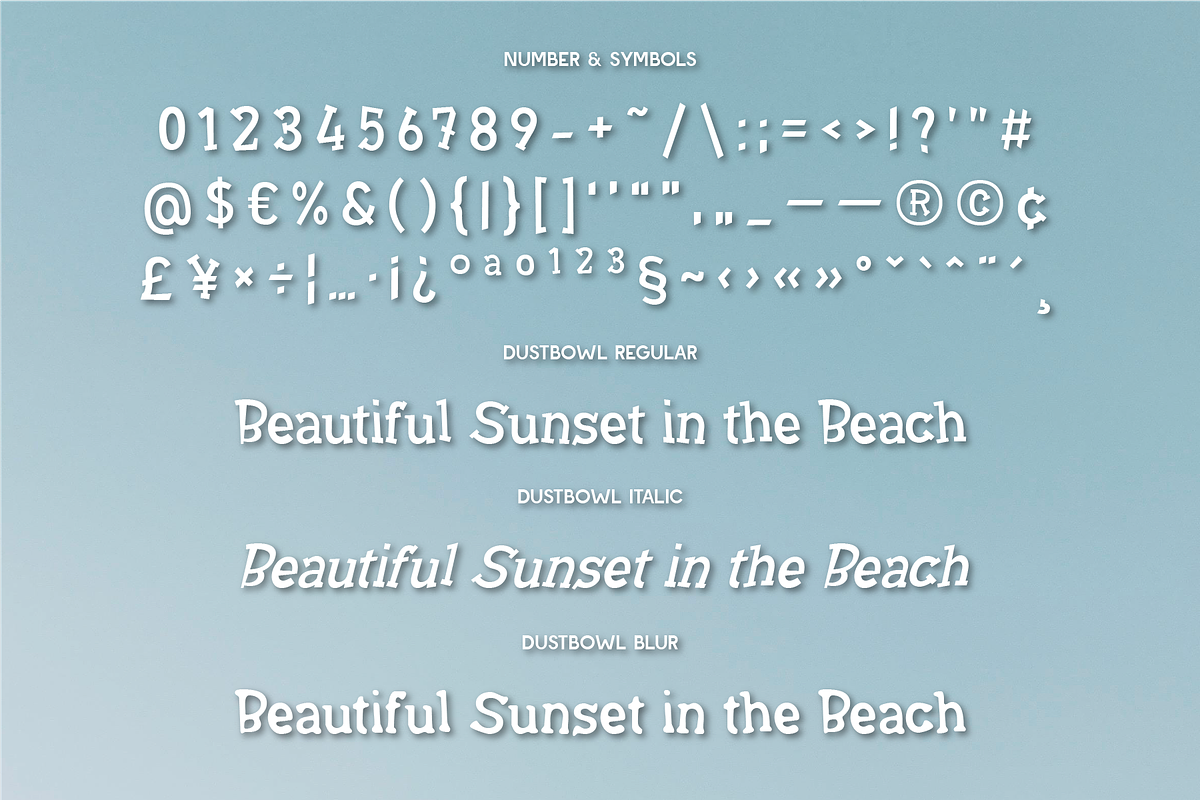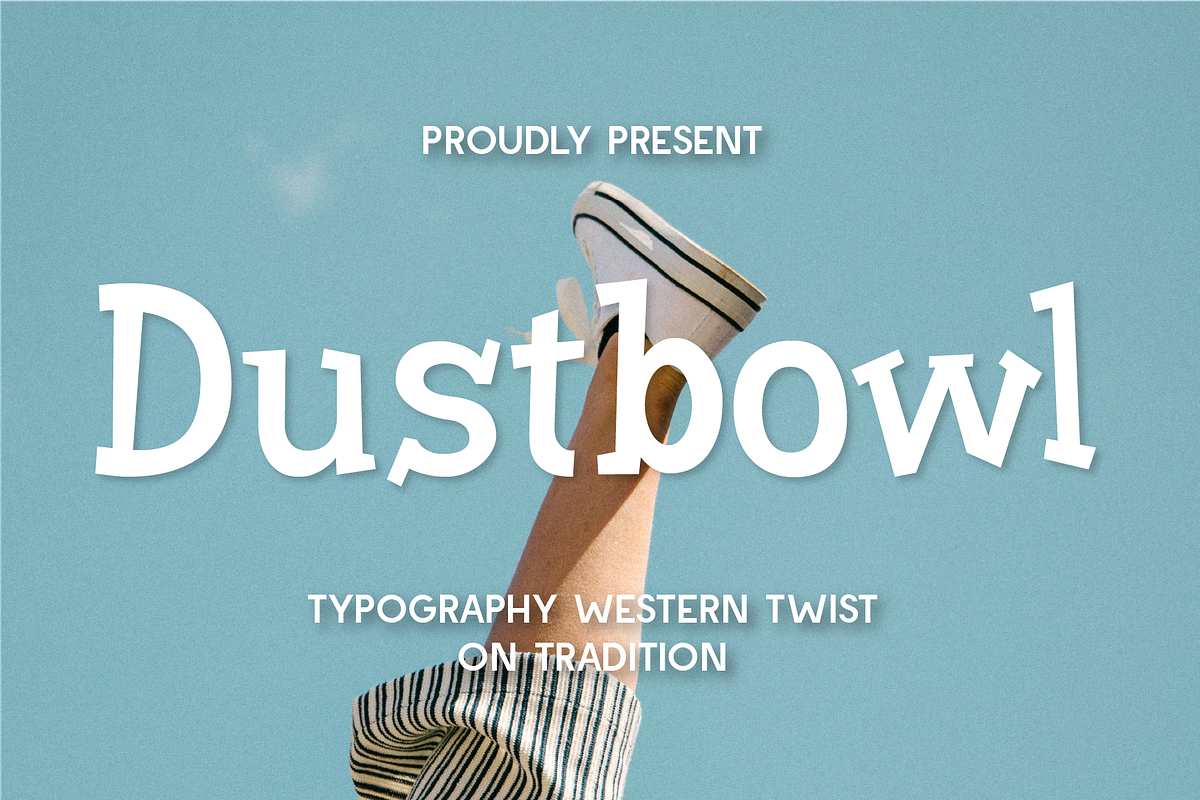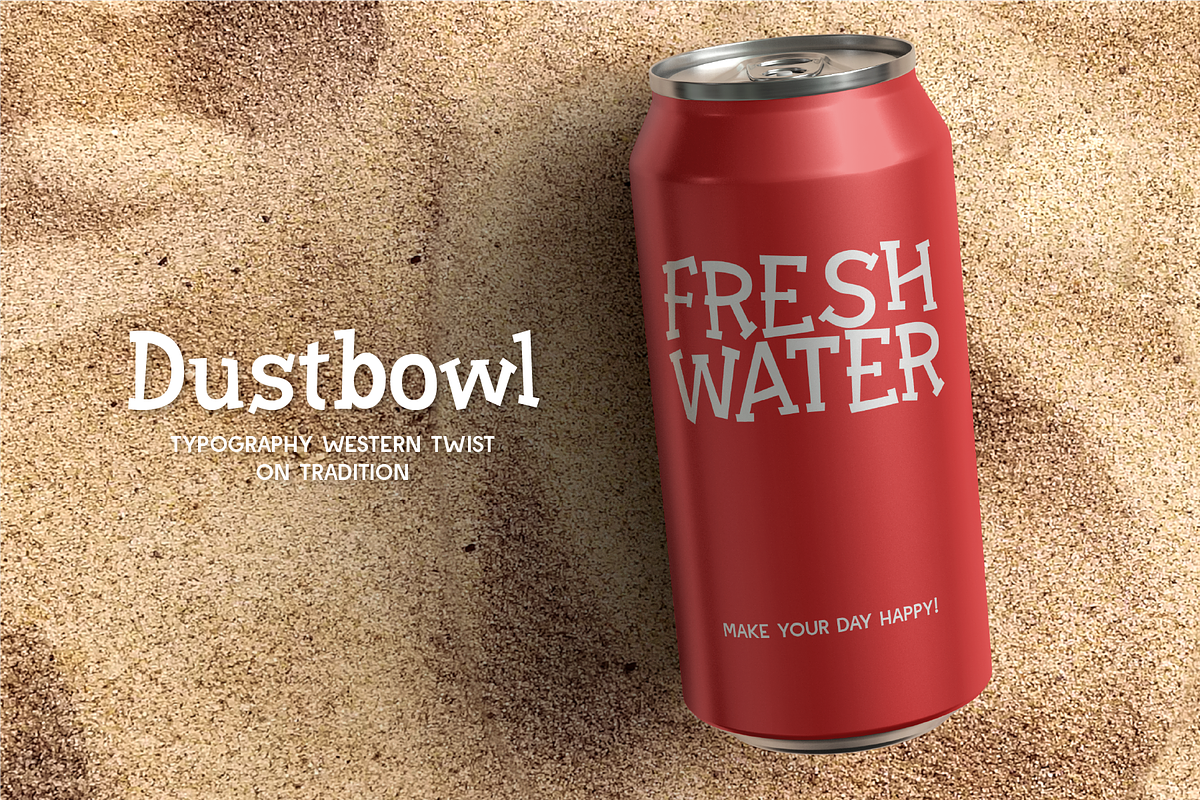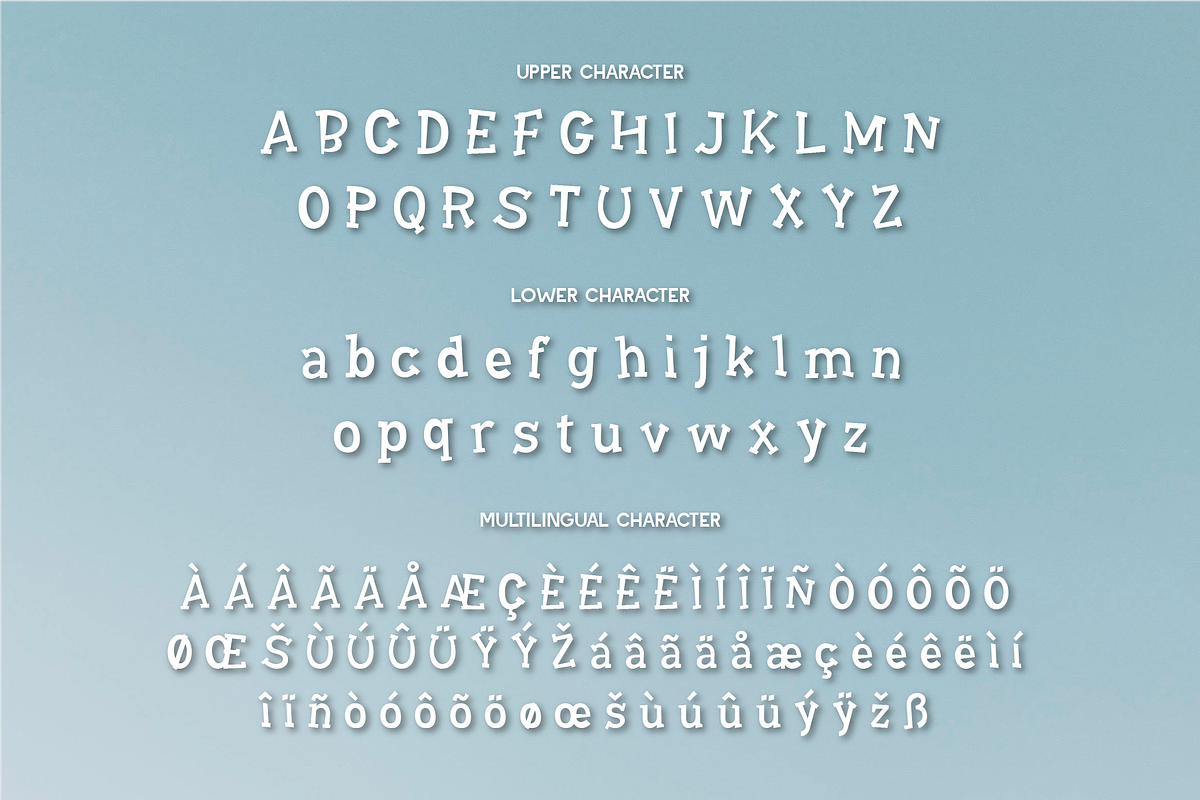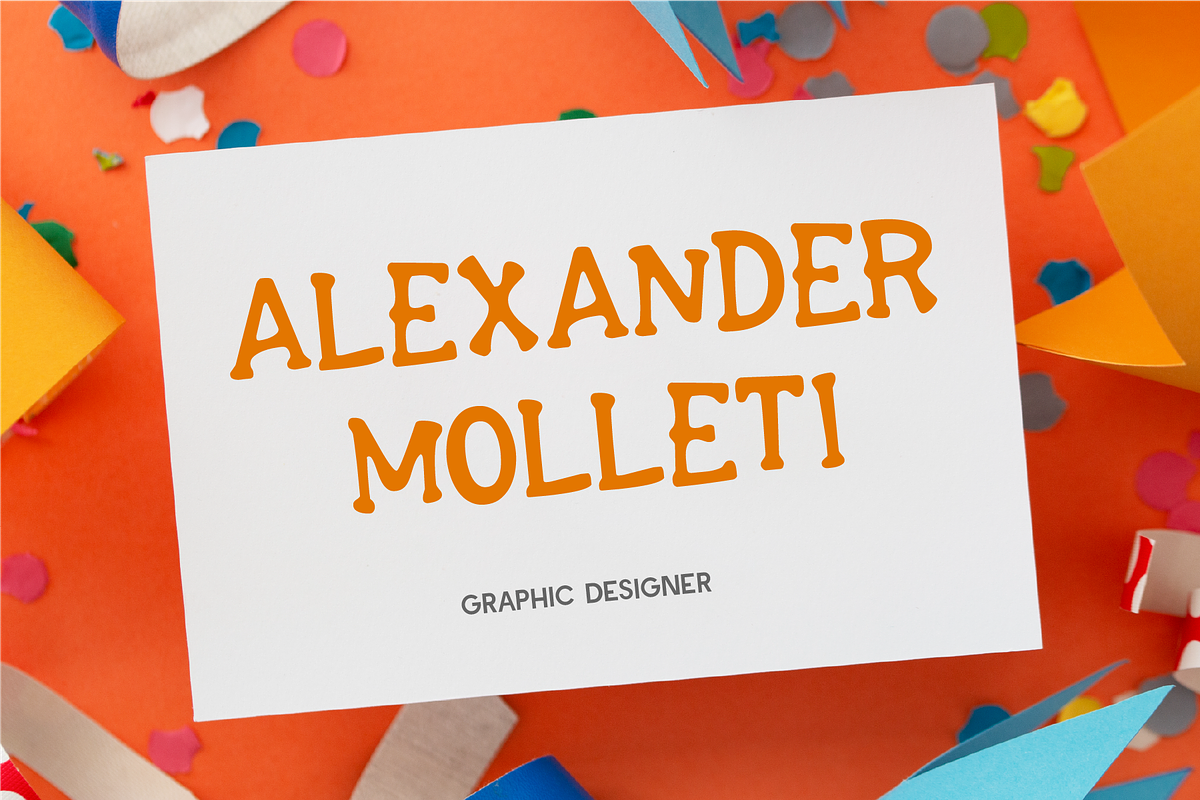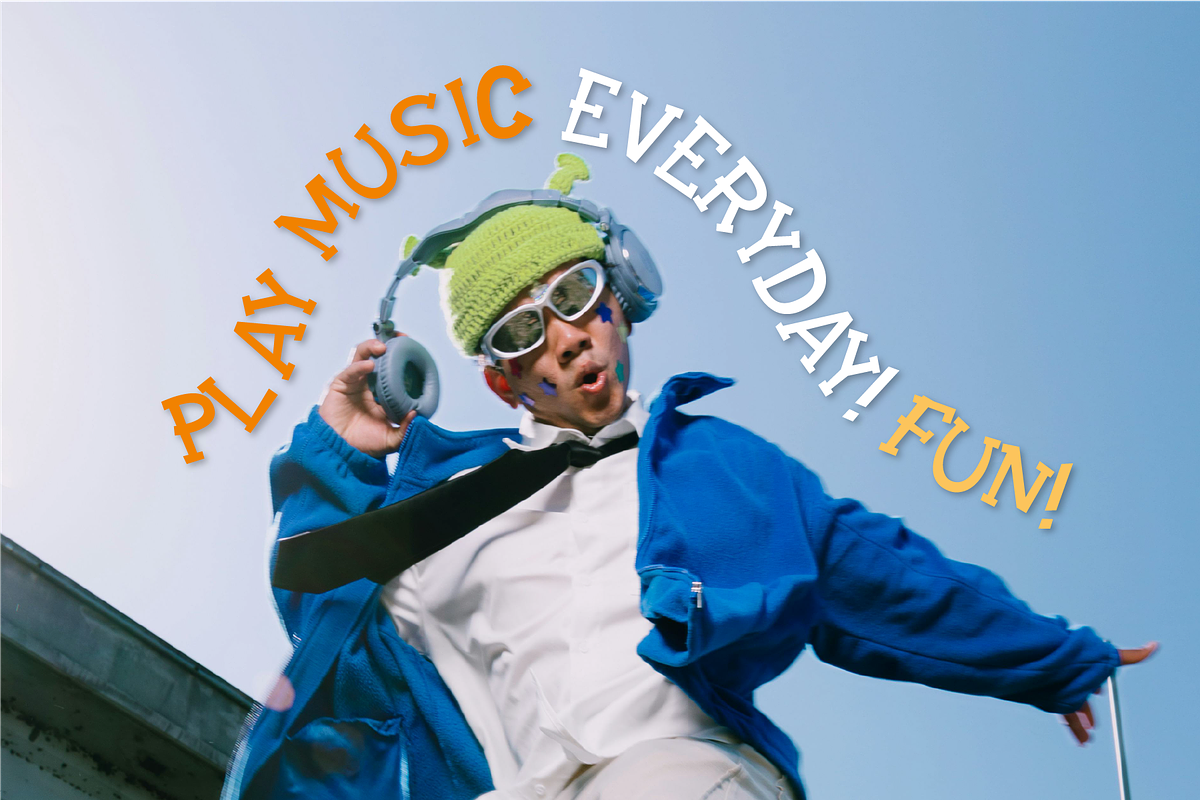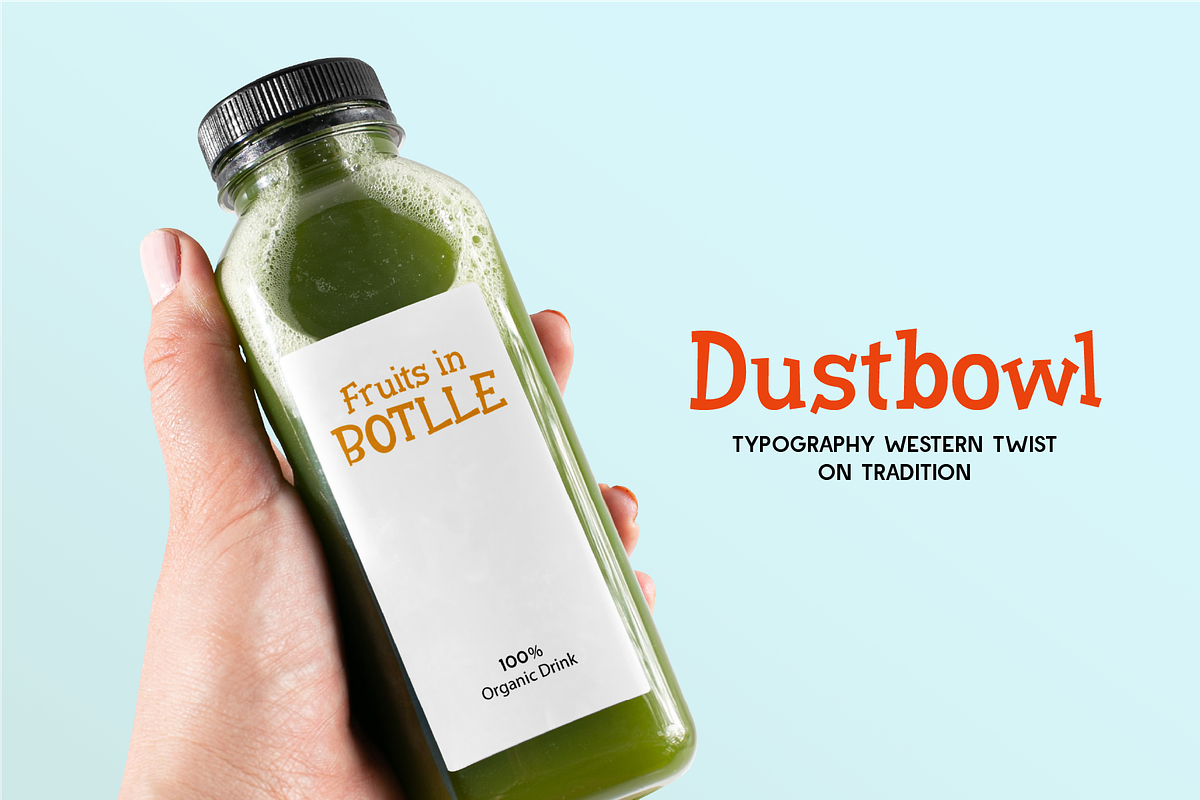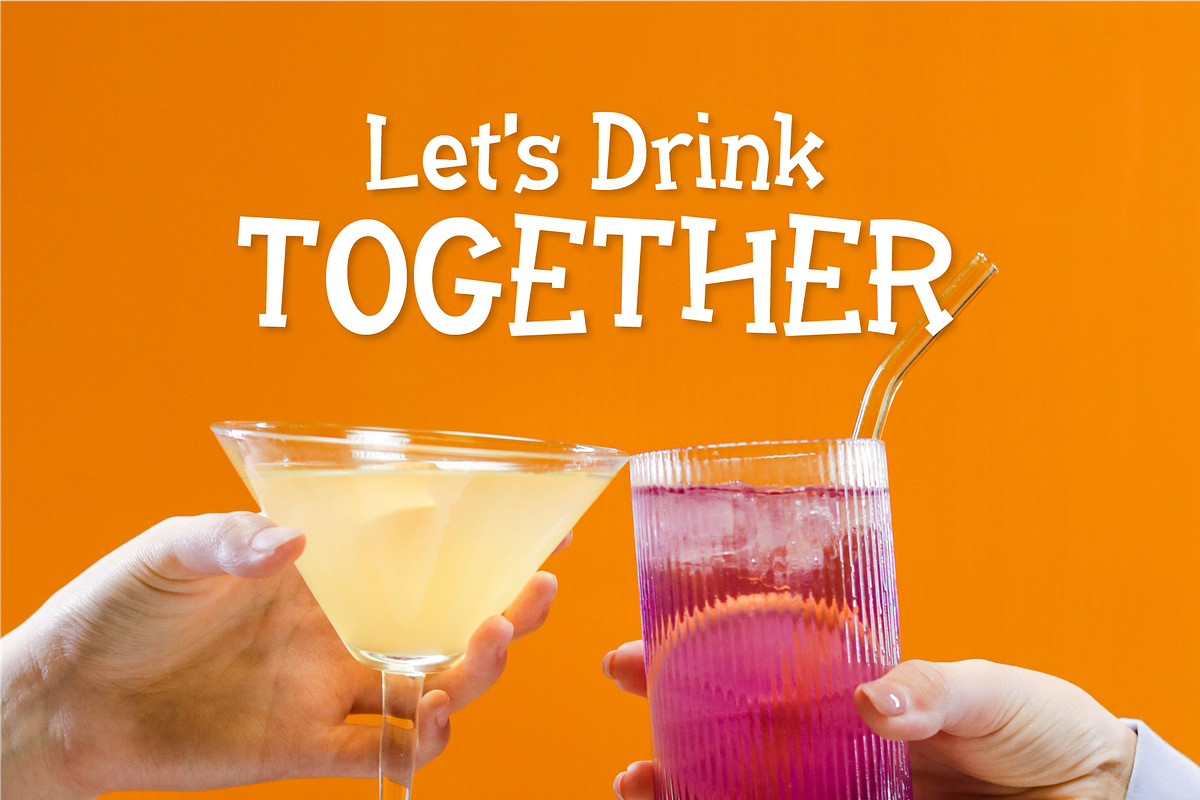
Dustbowl - Western Serif
Dustbowl a unique font that combines a vintage Western aesthetic with a modern twist. Its playful, irregular letterforms evoke the rugged charm of the Old West while maintaining a contemporary appeal, making it perfect for projects that need a bold and distinctive statement. Whether you're designing logos, posters, or branding materials, Dustbowl adds personality and character. With its clean yet quirky design, this font stands out while remaining highly legible, making it ideal for both digital and print designs.
- Regular, Italic and Blur